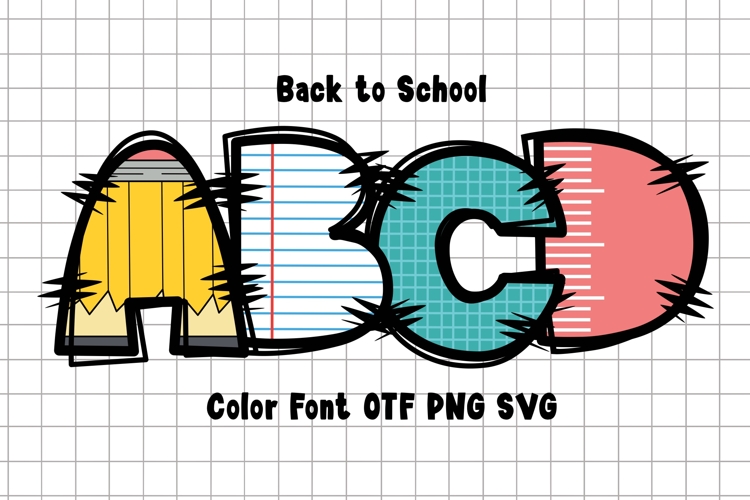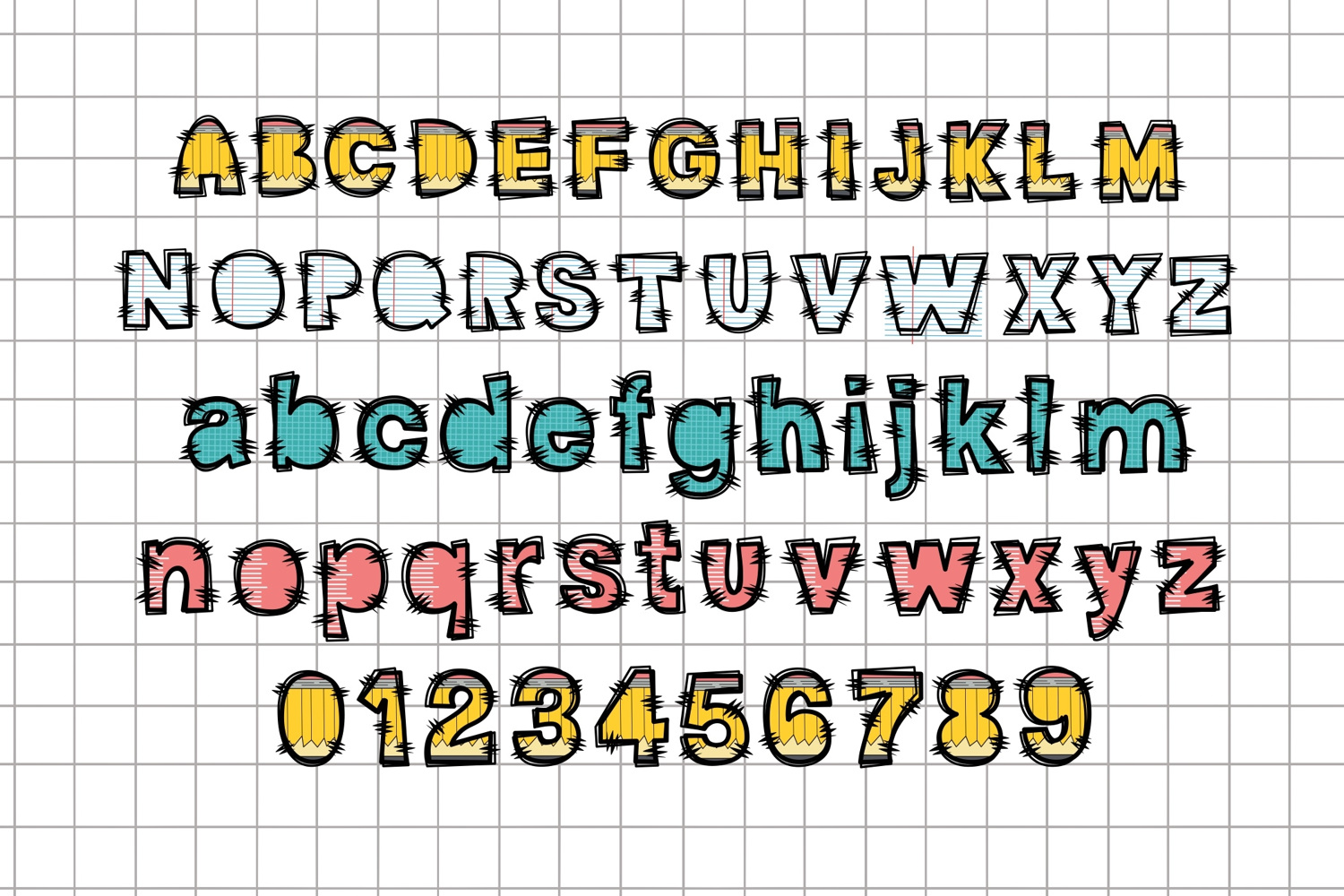
A playful color font featuring letters designed with pencil, notebook, cutting mat, and ruler patterns. Perfect for back-to-school projects, classroom decor, banners, stickers, invitations, and educational materials.
Back to School OTF PNG SVG